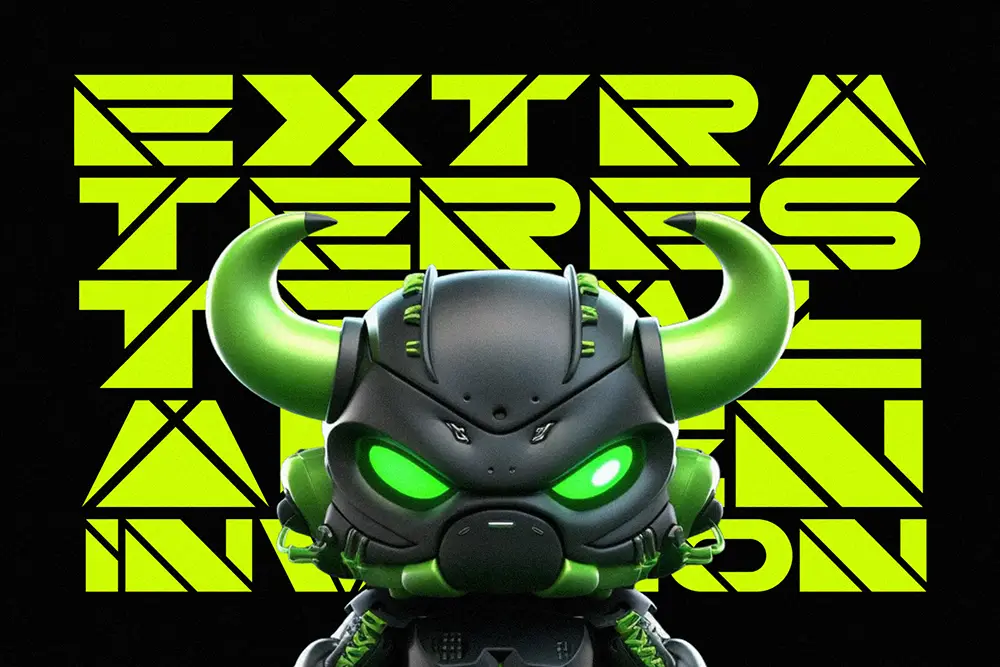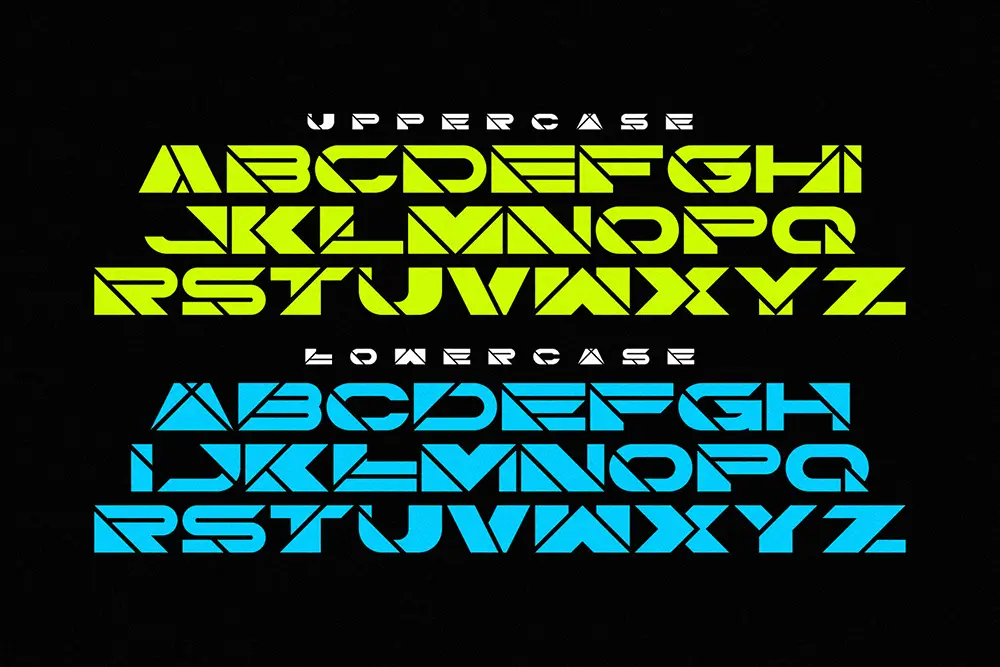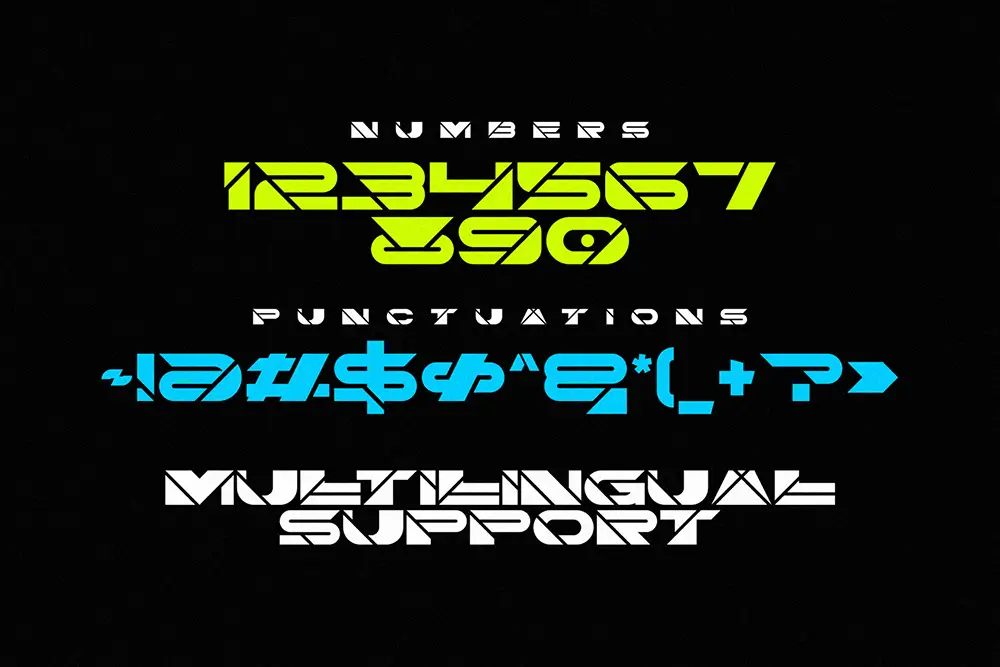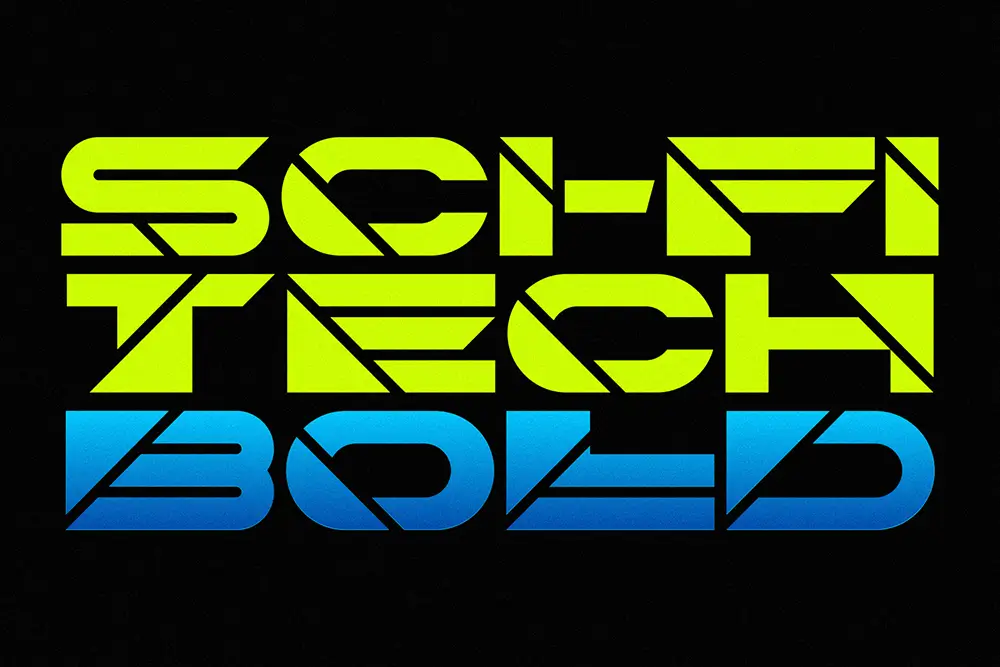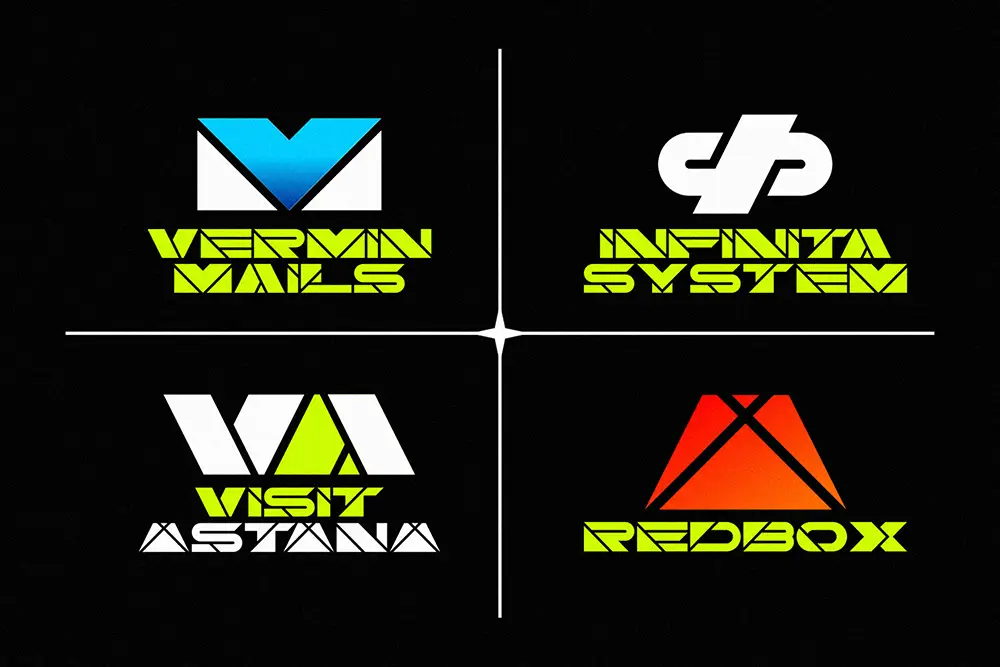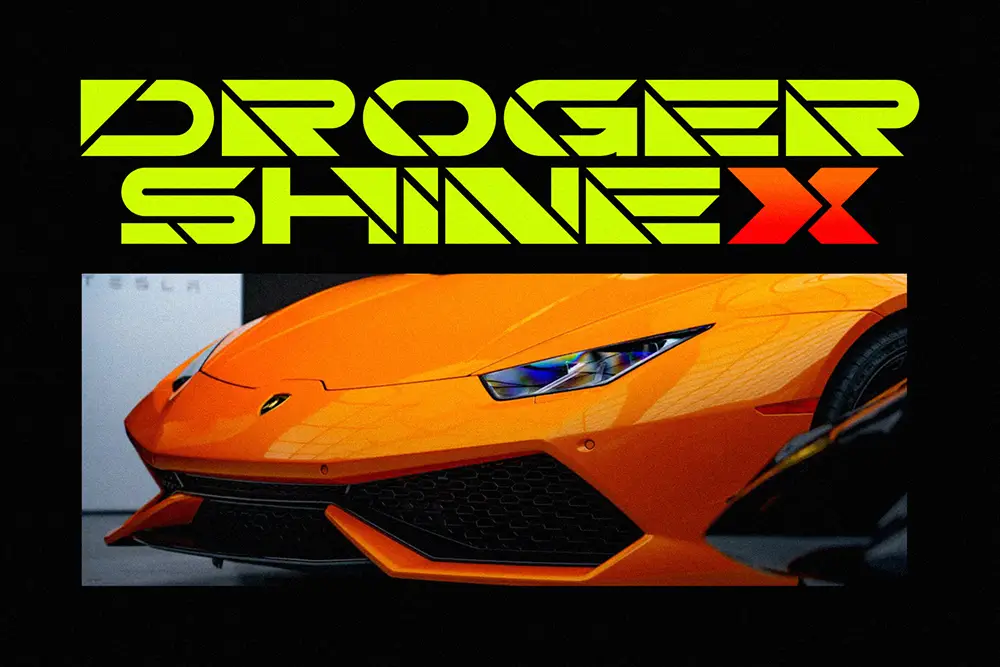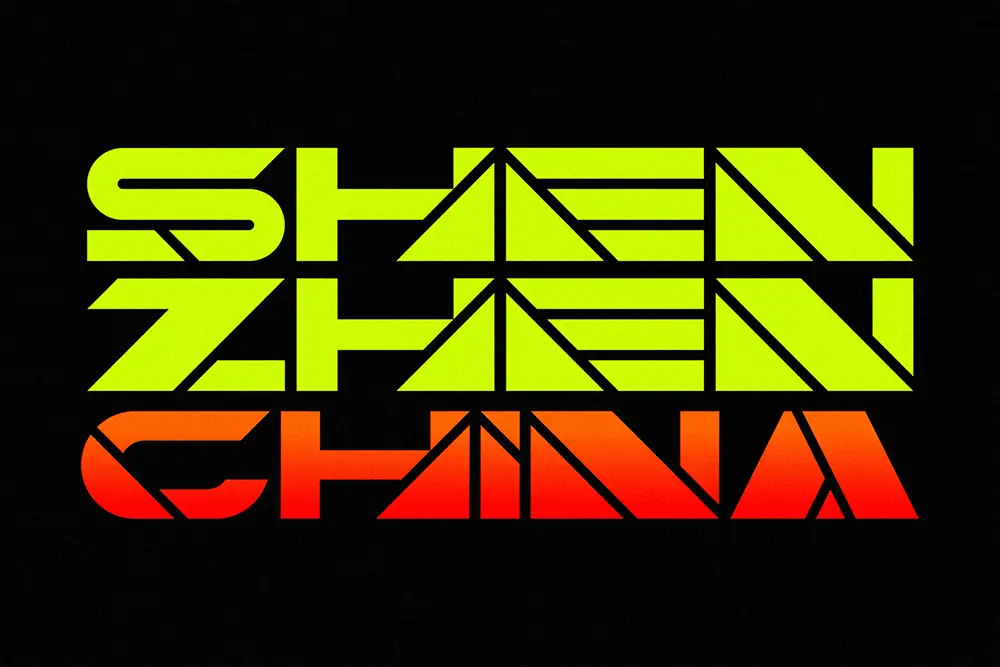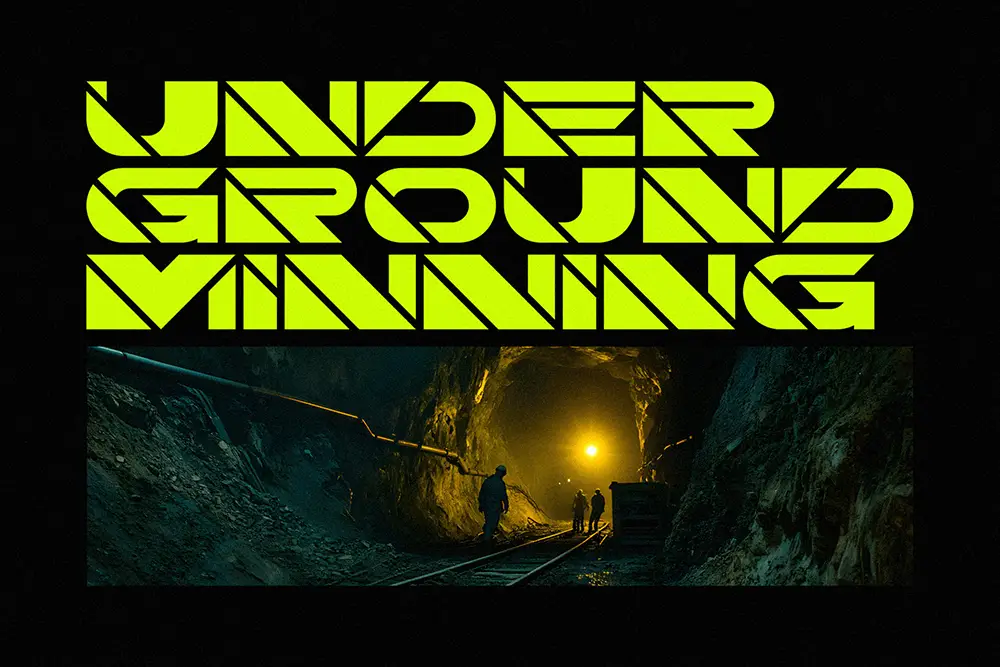
Alien Force – Perfect Shape Font for Futuristic Design
Typography shapes how audiences feel about your brand. When you need strength, structure, and a futuristic edge, Alien Force – Perfect Shape Font is the answer. Built with bold geometry and precise symmetry, this perfect shape font is designed for impactful logos, posters, and digital branding.
From sci-fi concepts to esports visuals, Alien Force delivers a modern identity that’s as memorable as it is professional.
Perfect Shape Font with Futuristic Identity
Alien Force sets itself apart from ordinary typefaces. Each character in this perfect shape font is carefully engineered to reflect balance, strength, and innovation. Its futuristic vibe makes it perfect for technology startups, esports logos, or sci-fi movie posters.
Every curve and line is intentional, giving designers a typeface that is both bold and legible. Alien Force ensures your typography speaks with authority.
Key Features of Alien Force – Perfect Shape Font
• Uppercase & Lowercase: Full alphabet for creative flexibility
• Multilingual Support: Extended Latin coverage for global audiences
• Perfect Geometric Shapes: Futuristic design with sharp precision
• Modern Display Style: Ideal for digital, print, and branding projects
• High Impact Visibility: Great for logos, posters, and esports campaigns
Why Designers Love Alien Force
Designers love Alien Force because it’s more than just a font—it’s a creative tool. As a perfect shape font, it combines futuristic aesthetics with functionality.
• Creates Strong Logos – Bold geometry delivers powerful branding.
• Global Use – Multilingual support ensures wide usability.
• Pairing Potential – Works perfectly with brush, futuristic, and script fonts.
• Professional Edge – Looks strong, clean, and modern in any context.
Alien Force for Logos and Branding
Logos carry the weight of a brand’s identity. Alien Force is the perfect shape font for bold wordmarks and futuristic emblems. Its sharp structure instantly communicates modernity, strength, and innovation.
Alien Force for Posters and Advertising
Posters and advertisements demand immediate attention. Alien Force excels as a perfect shape font for large-scale layouts—whether you’re promoting a tech event, a sci-fi movie, or a gaming tournament.
Its strong forms ensure that your headline stands out from a distance, making it ideal for banners, billboards, and promotional campaigns.
Alien Force in Esports and Digital Media
Esports and streaming graphics rely on bold, futuristic designs. Alien Force is a natural fit as a perfect shape font for Twitch overlays, YouTube thumbnails, and tournament branding.
• Character Set: Uppercase, Lowercase, Numbers, Punctuation
• Category: Perfect Shape Font / Futuristic Display
• Best Uses: Logos, Posters, Branding, Esports, Gaming, Advertising
Why Alien Force is the Perfect Shape Font You Need
Typography trends are shifting toward strong, futuristic, and geometric designs. Alien Force captures this shift. As a perfect shape font, it’s bold, versatile, and timeless.
Designers who use Alien Force elevate their projects with modern aesthetics and global usability. Paired with Break Fridays, Technos, or Jocker Block, it becomes a versatile powerhouse for logos, posters, esports, and branding campaigns.
Alien Force – Perfect Shape Font is not just another display typeface—it’s a futuristic design weapon. With geometric precision, multilingual support, and versatile pairings, it’s ready for any bold creative project.
Don’t just design—make a futuristic impact with Alien Force, the perfect shape font for modern creators.